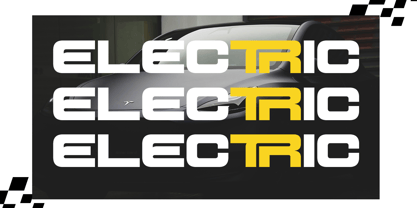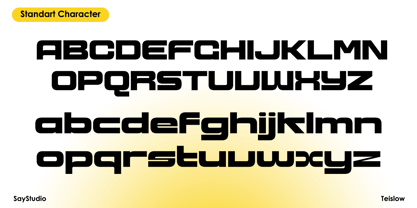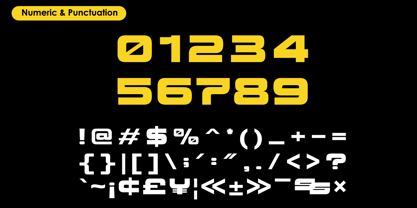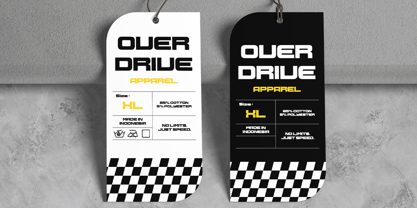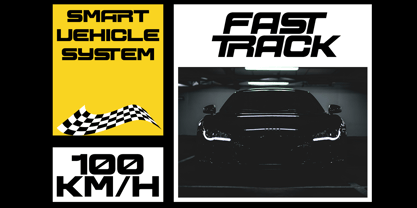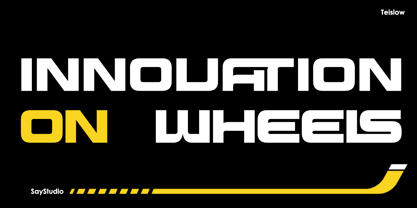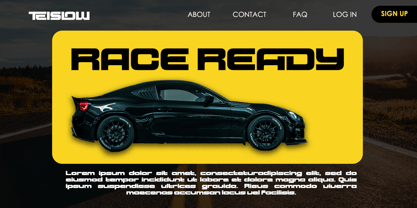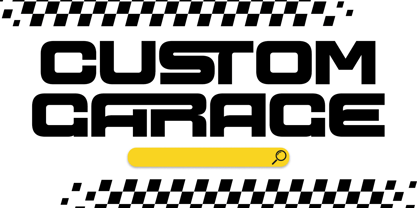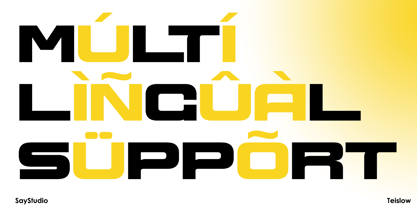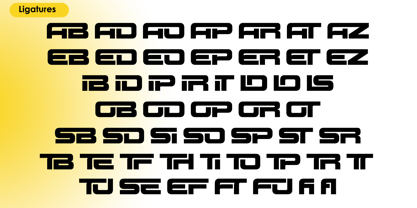
Teislow
par Say Studio
La famille de polices Teislow a été conçue par Mussyayin et publiée par Say Studio. Teislow contient 2 styles et options de package familial. En savoir plus sur cette famille
Teislow is a futuristic display typeface designed to convey speed, power, and modern innovation. Drawing inspiration from automotive design, technology, and sci-fi aesthetics, Teislow showcases bold geometric forms with sharp edges that create a strong and confident visual impact. Tailored for high-energy visuals, this typeface infuses a sense of motion and precision into every composition. Its robust structure and contemporary proportions ensure high readability while preserving a striking, aggressive character. This unique balance allows Teislow to excel in both digital and print applications. Teislow is perfect for automotive branding, racing visuals, futuristic posters, technology products, gaming titles, and modern advertising. Whether utilized for logos, headlines, packaging, or promotional designs, this typeface delivers a commanding futuristic tone that captures attention. Ideal for designers seeking bold typography with a cutting-edge feel, Teislow transforms text into a dynamic and modern statement, making it an excellent choice for impactful design projects. Thank You! Have a Wonderful Day! Saystudio